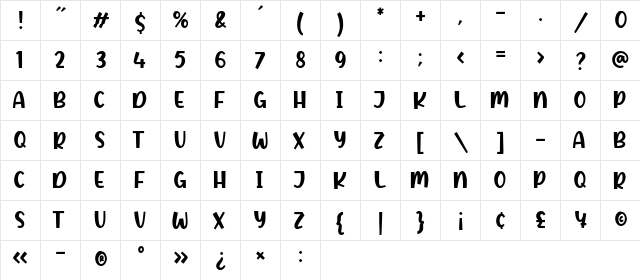
ICEBOLD Regular
| Designer | Balpirick Studio |
Design Context for ICEBOLD Typeface
ICEBOLD is a composed and adaptable typeface that performs quietly and consistently across a wide range of design contexts. The heavy weight commands attention and anchors typographic hierarchies.